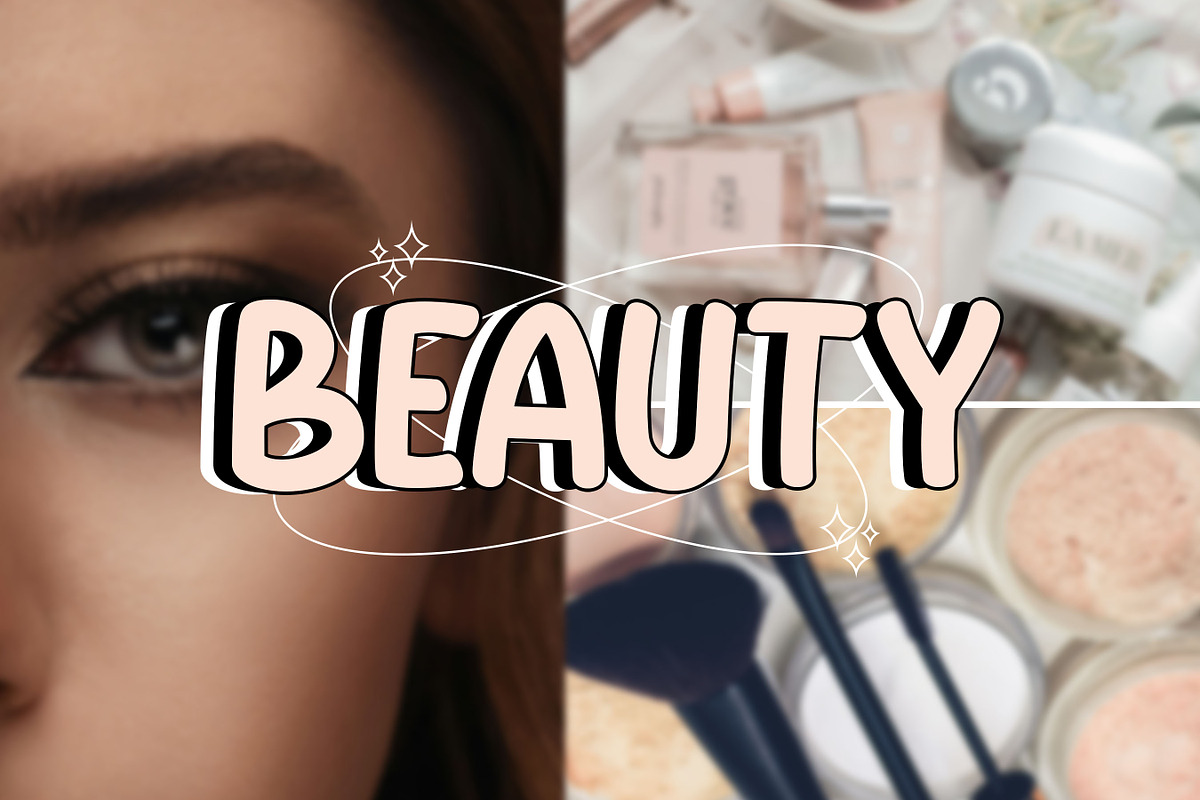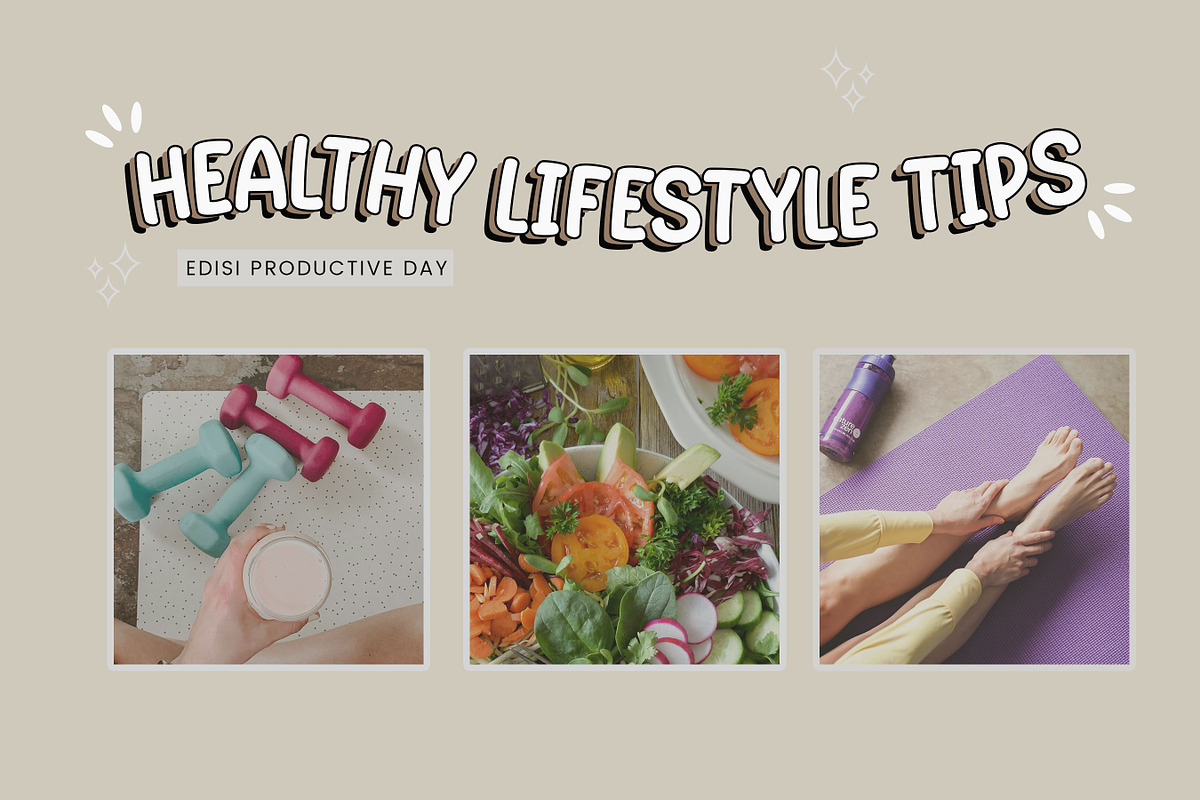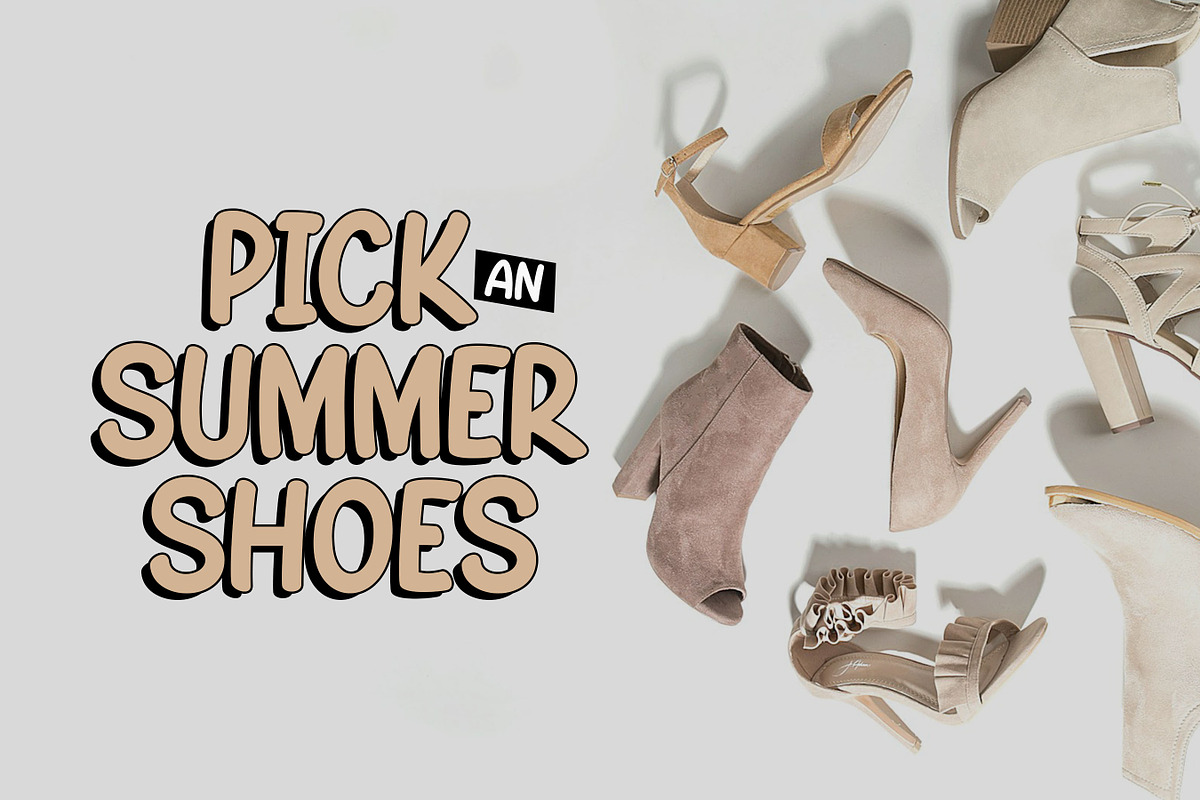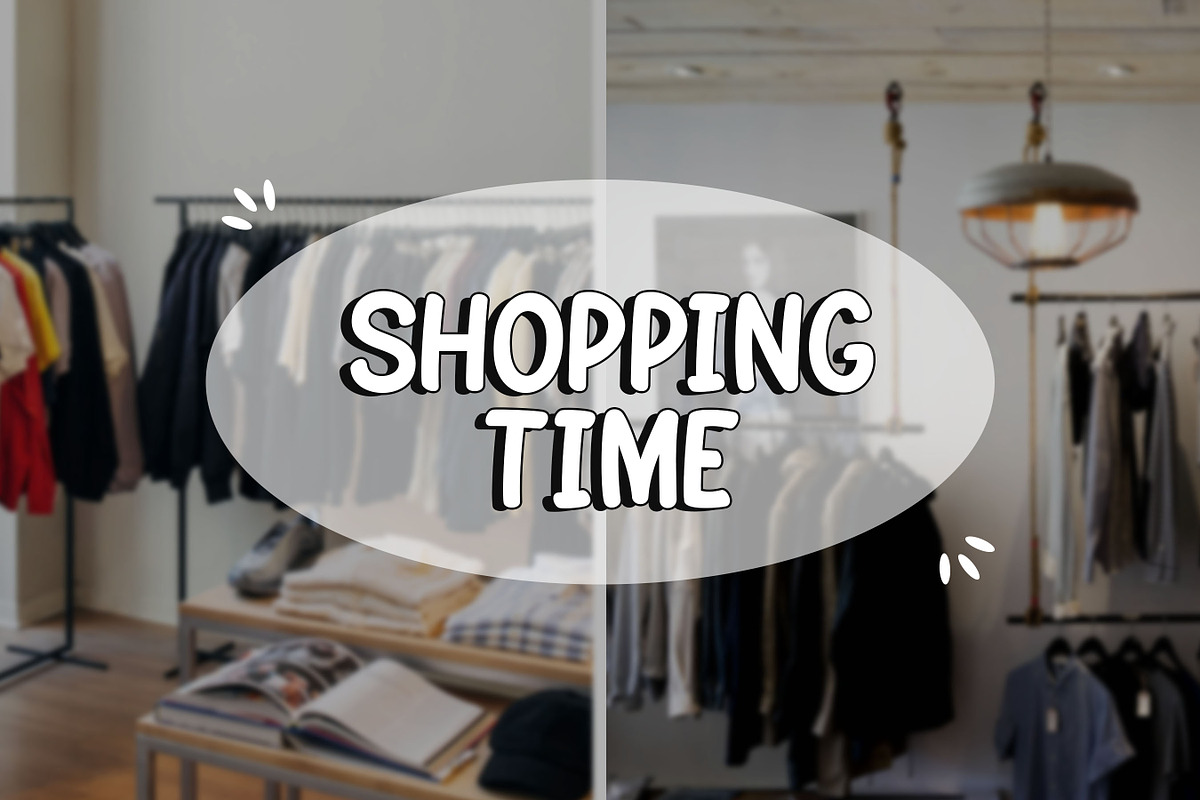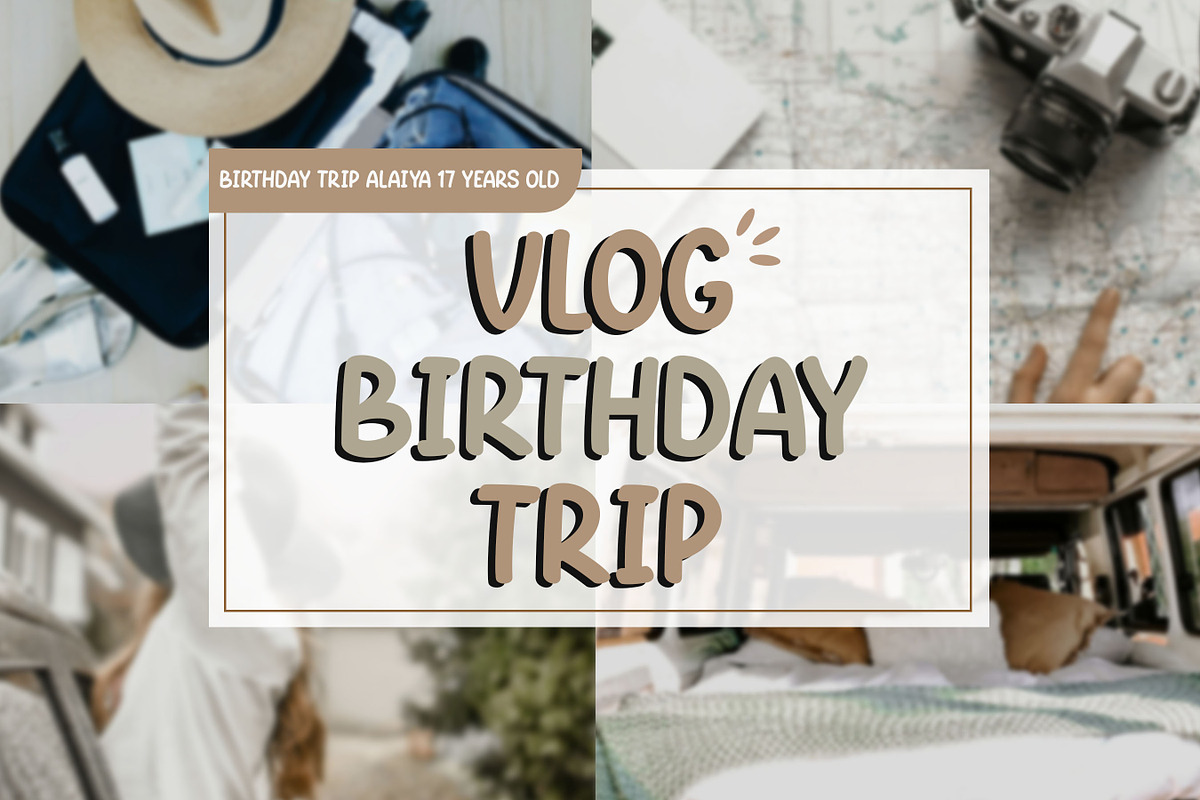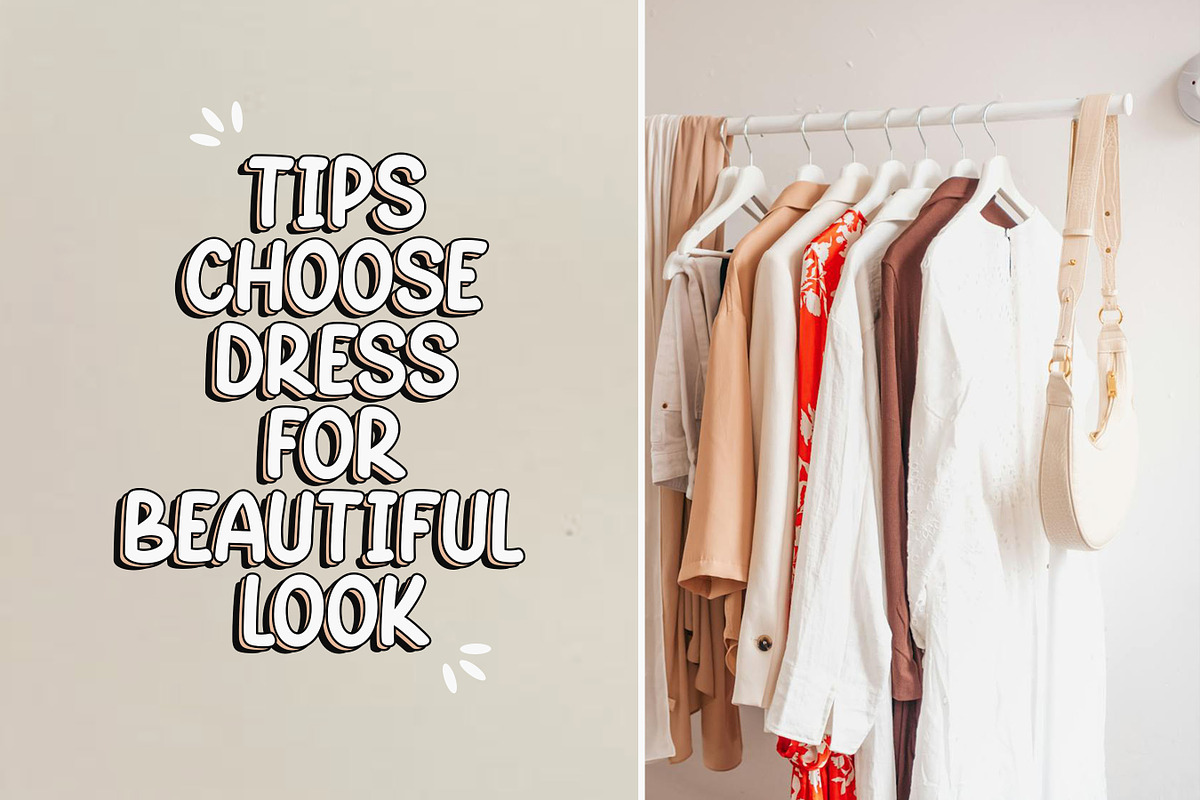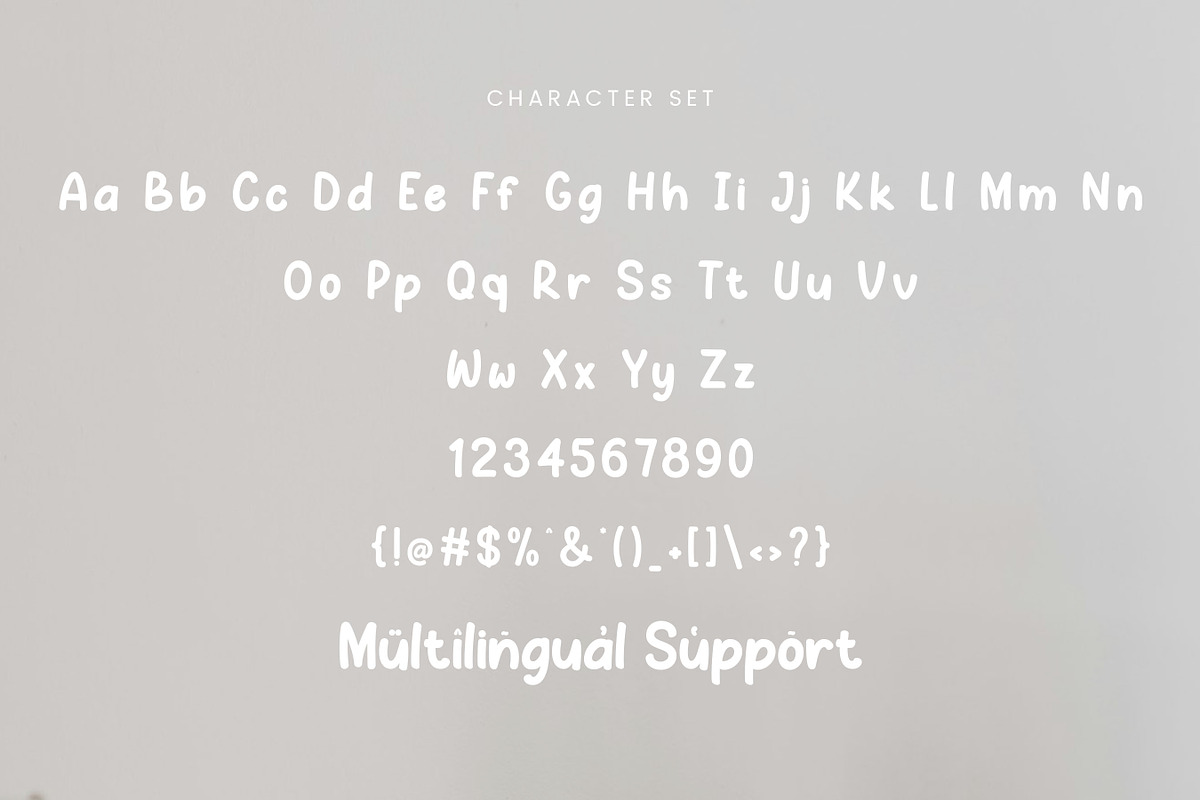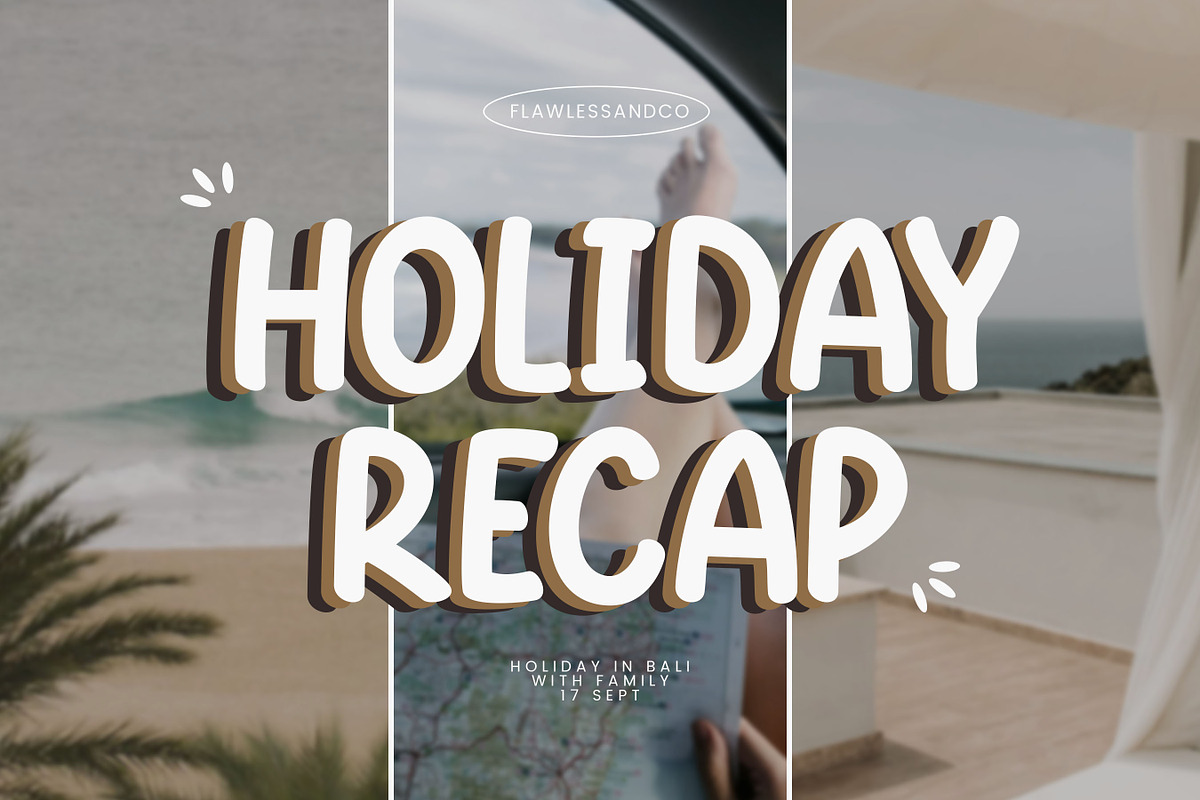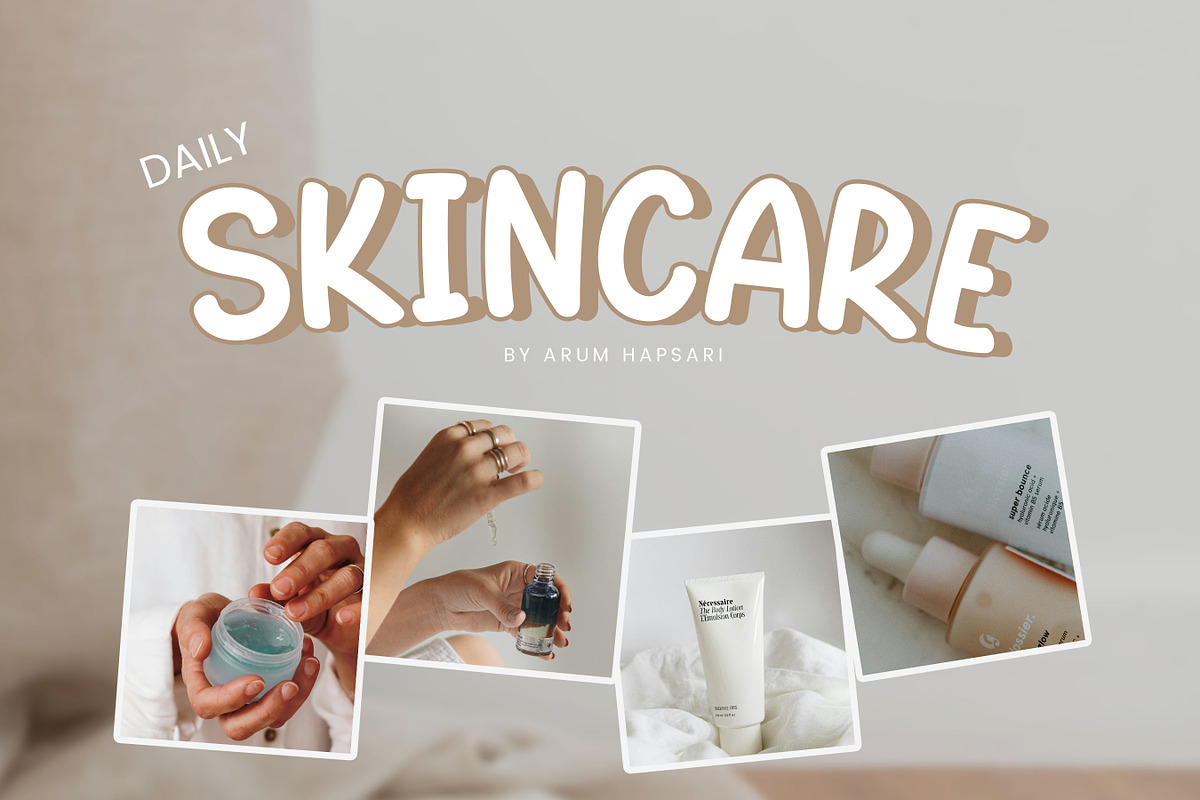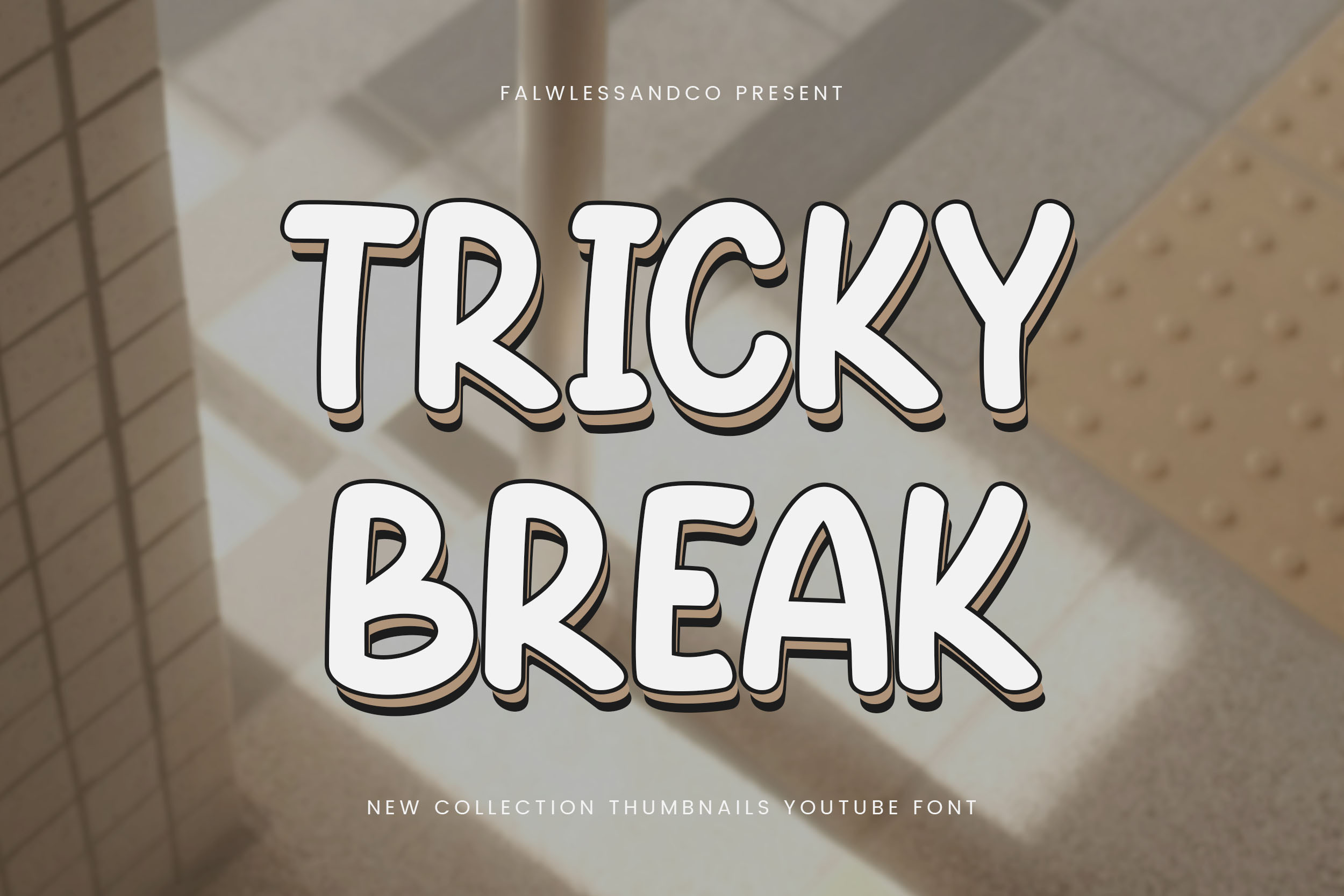
Tricky Break - Thumbnails Font
Introducing Tricky Break, a bold and captivating display font designed to make your YouTube thumbnails stand out from the crowd. This font is suitable for any graphic designs such as branding materials, Thumbnails YouTube, video content, print, business cards, logos, posters, t-shirts, photography, quotes .etc
- Uppercase alphabet A-Z
- Lowercase alphabet a-z
- Numbers 0-9
- Some punctuation